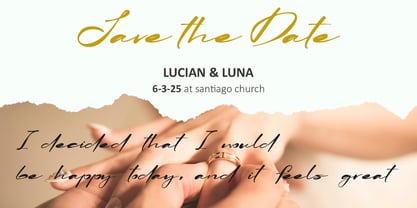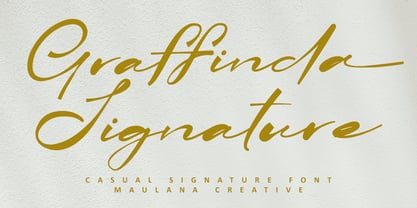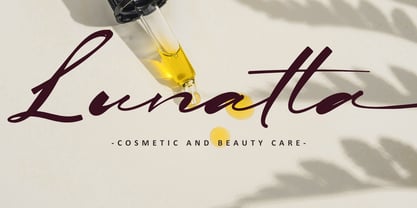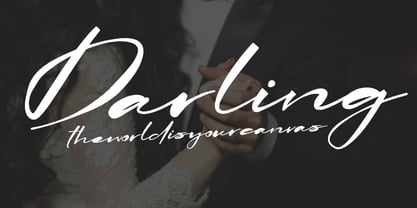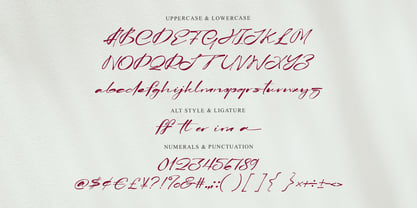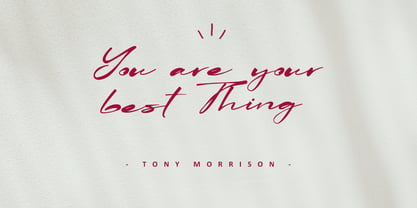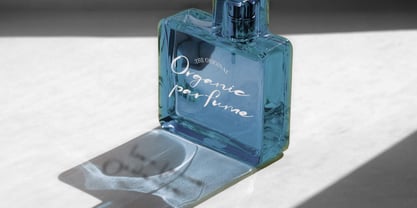
MC Graffinda
by Maulana Creative
The MC Graffinda Font Family was designed by Gilang Maulana and published by Maulana Creative. MC Graffinda contains 1 styles. More about this family
Graffinda casual signature script handmade font. Fun character with a bit of ligatures and alternate. To give you an extra creative work. Graffinda font is good for logo design, Social media, Movie Titles, Books Titles, a short text even a long text letter and good for your secondary text font with script or serif. Make a stunning work with Graffinda font.